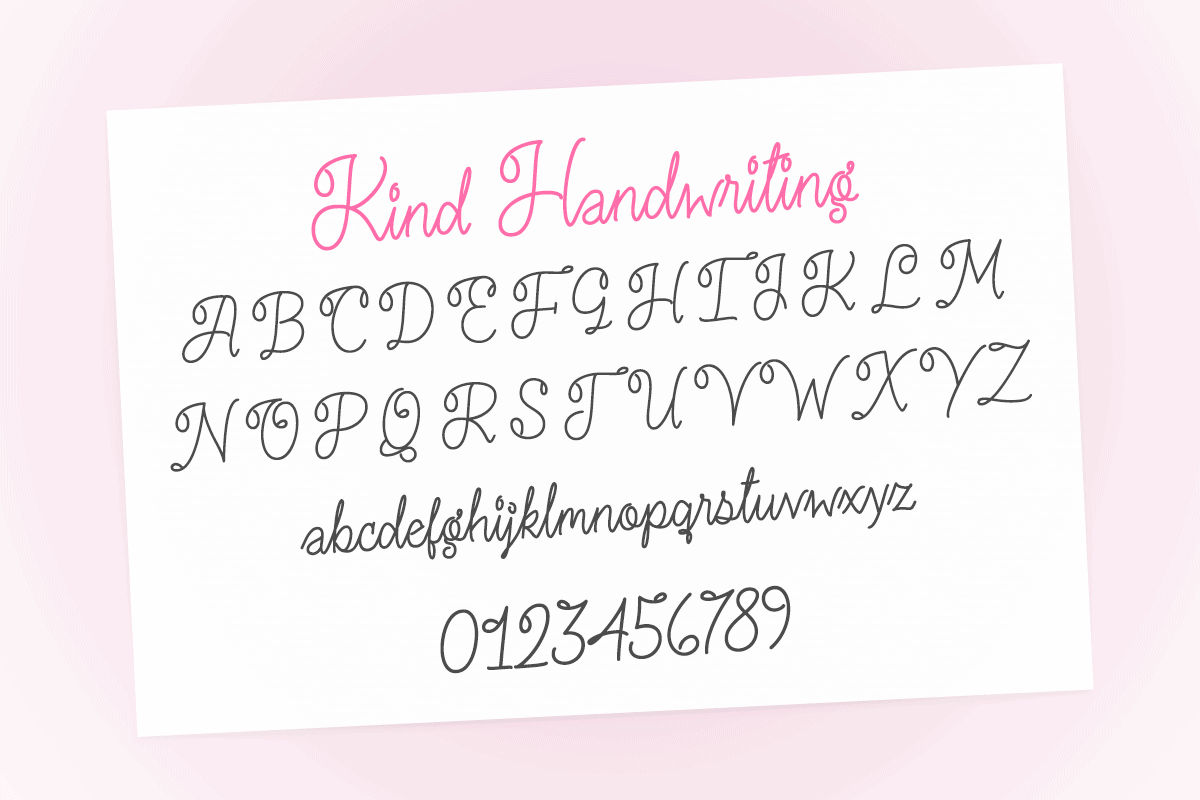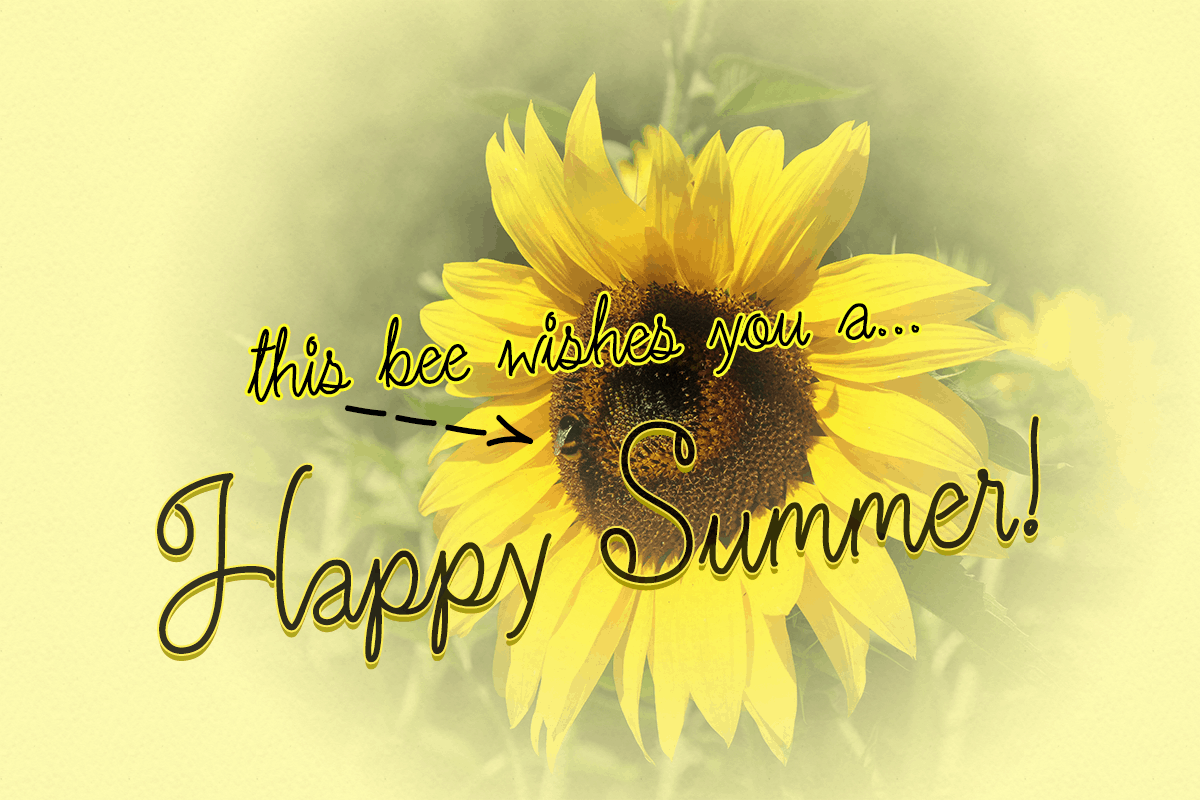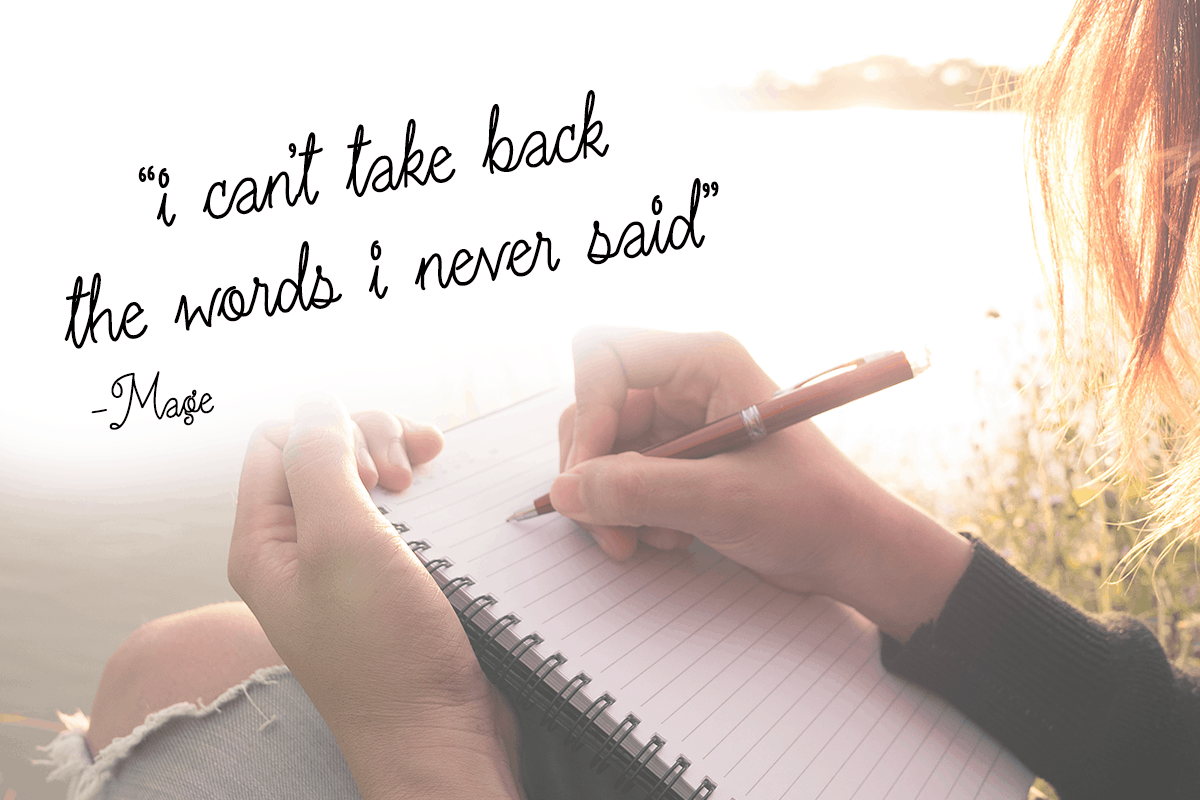
Kind Handwriting
Kind Handwriting is a delicate and elegant handwritten font. It looks stunning on wedding invitations, thank you cards, quotes, greeting cards, logos, business cards and every other design which needs a handwritten touch.